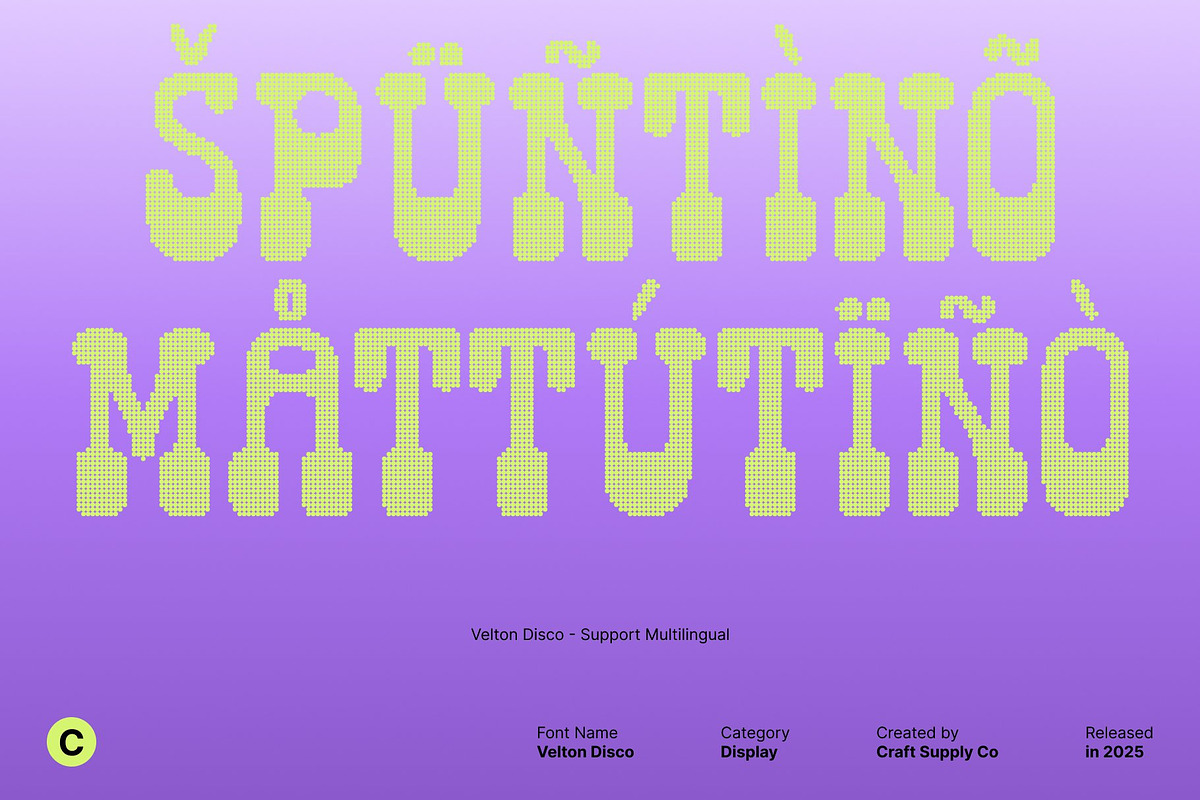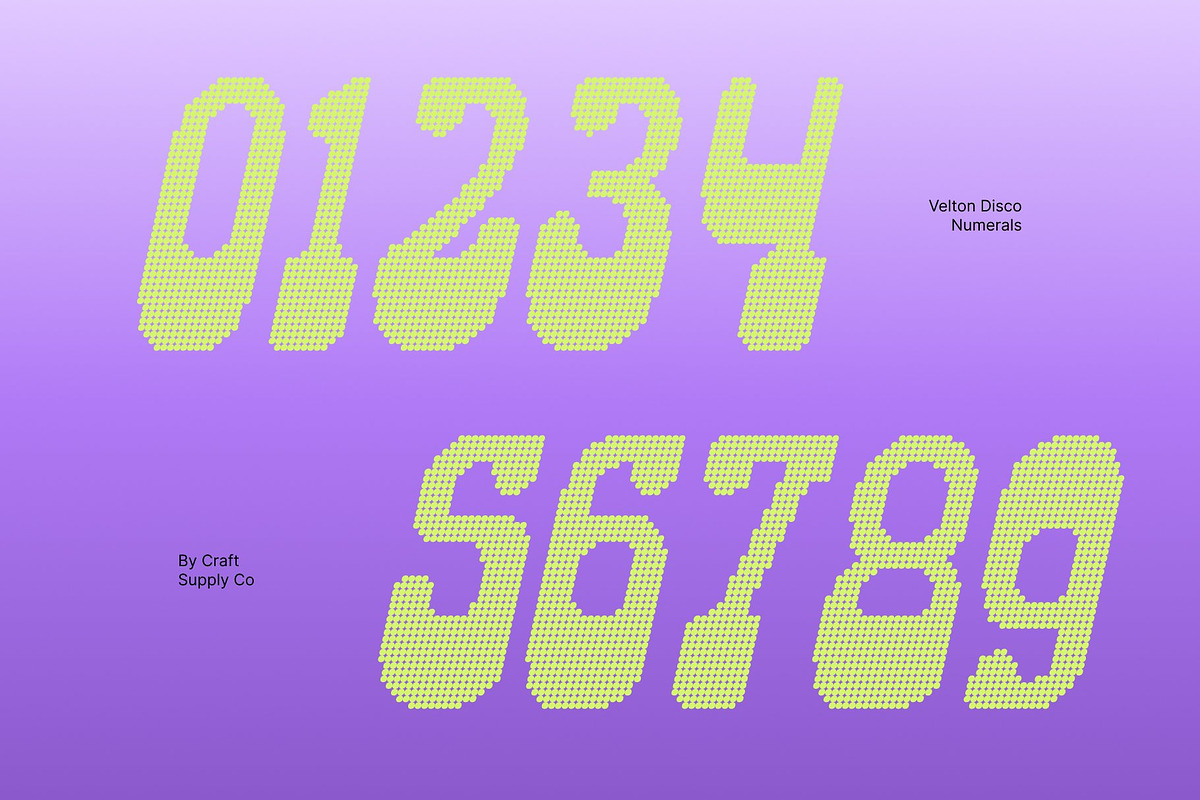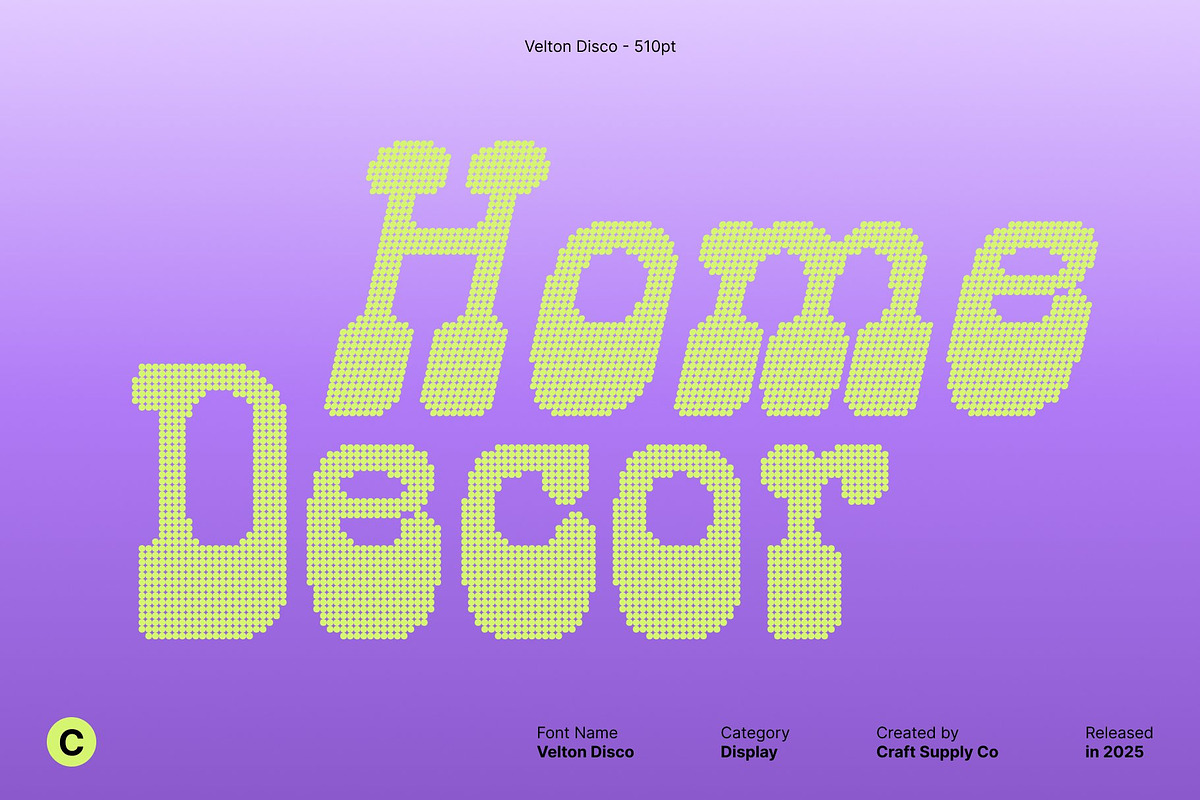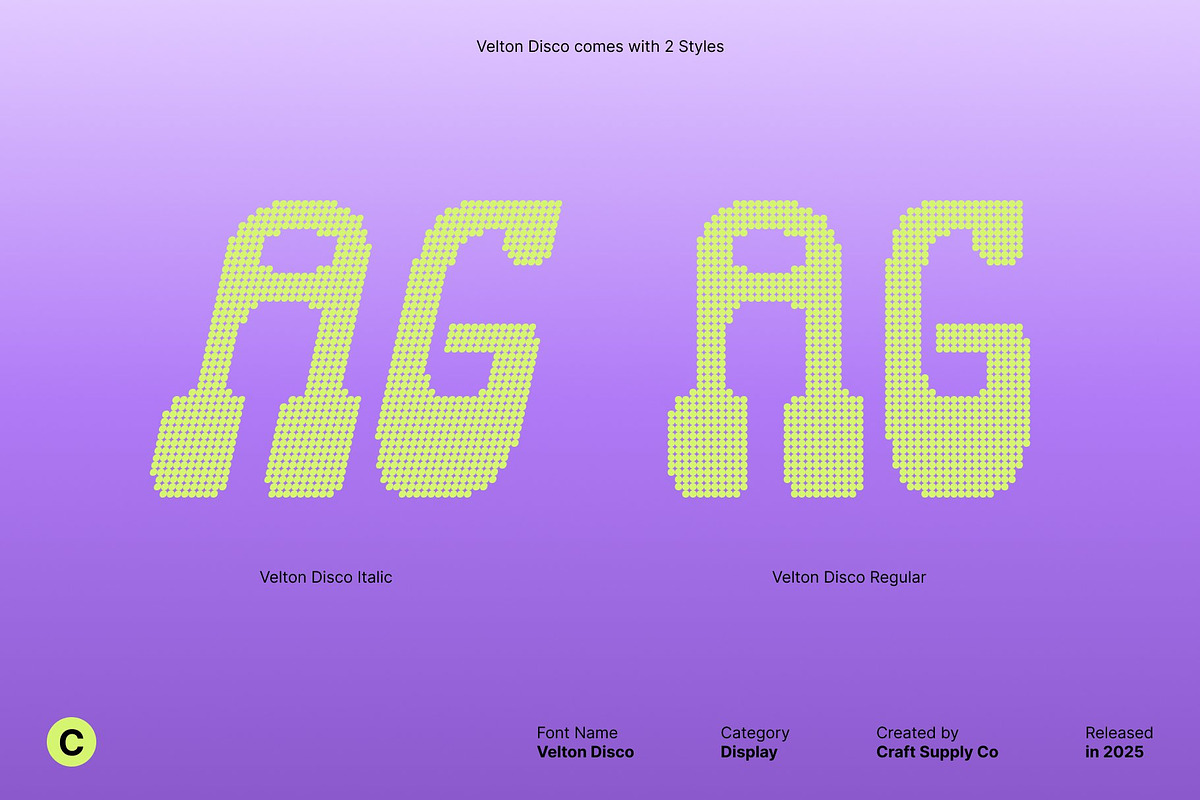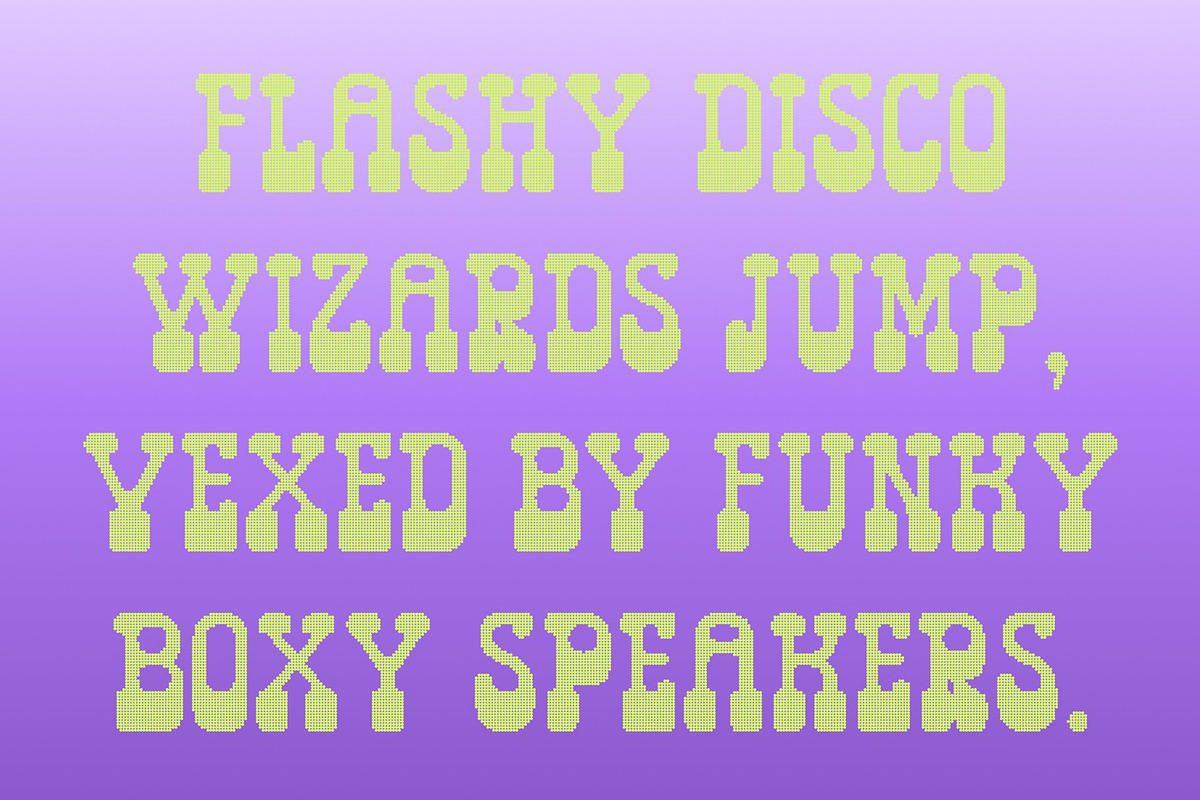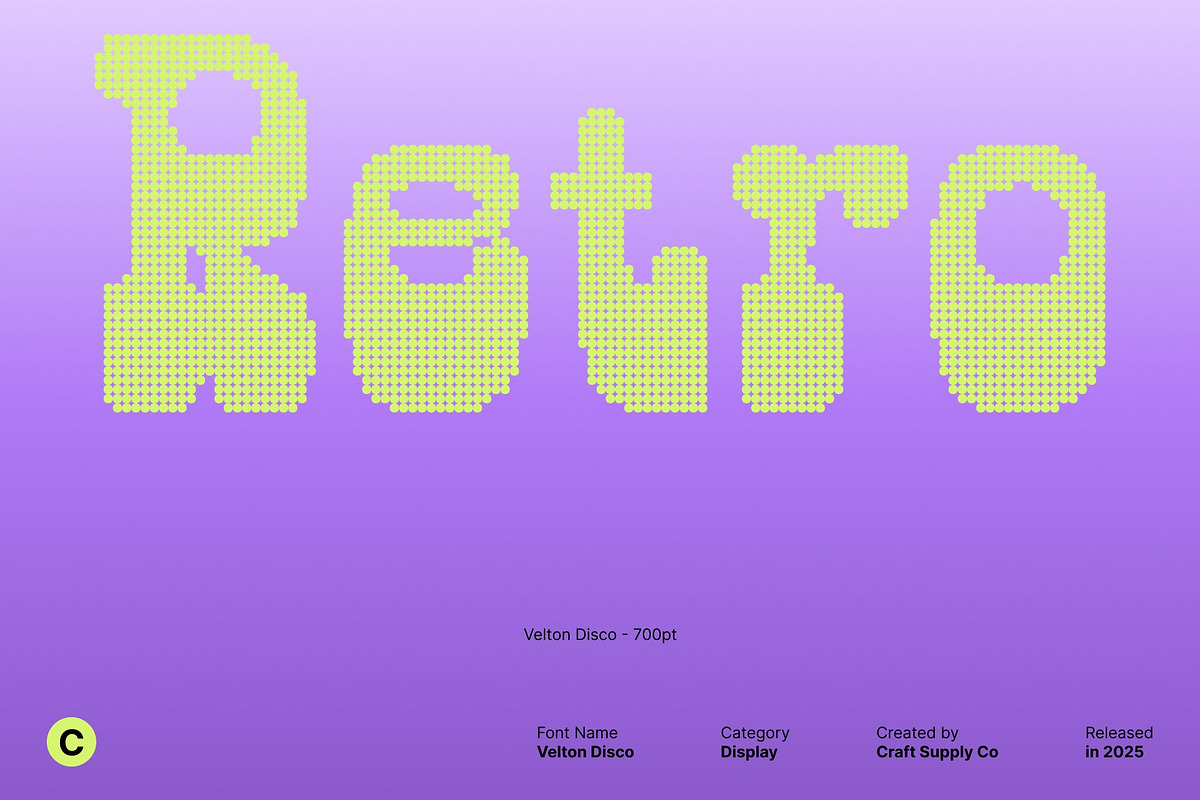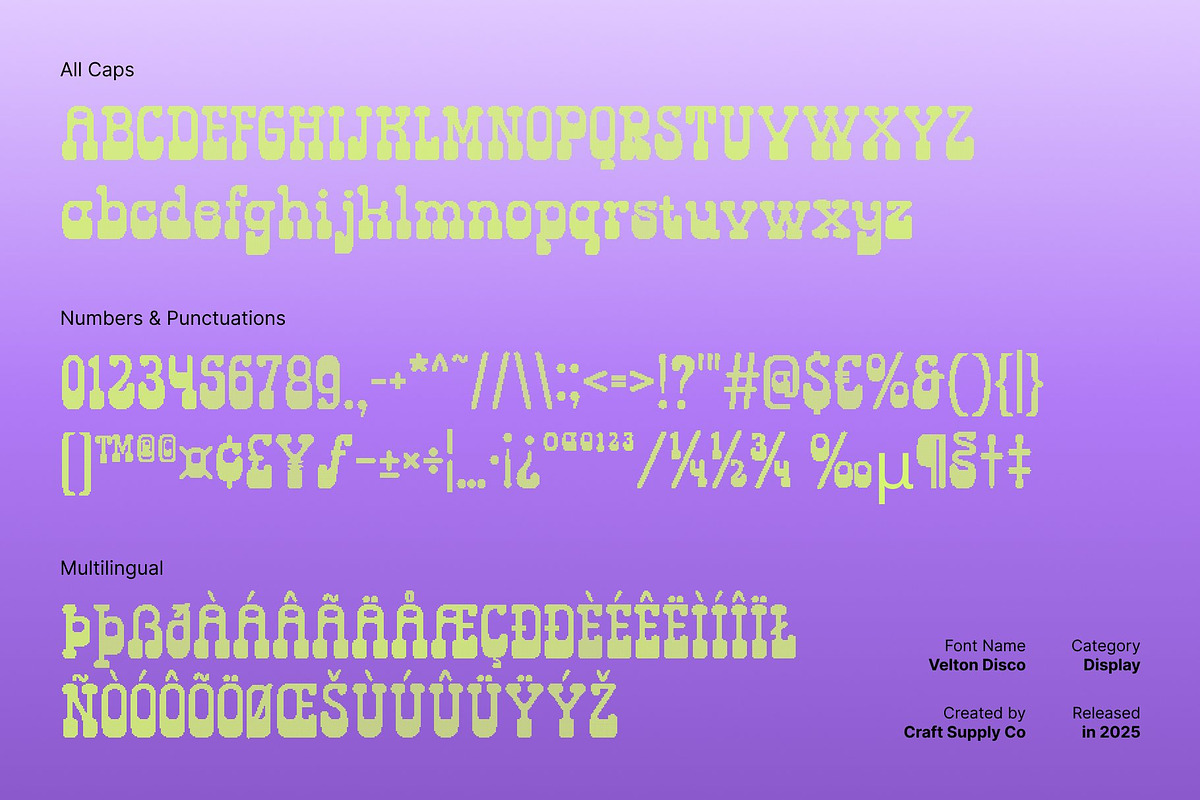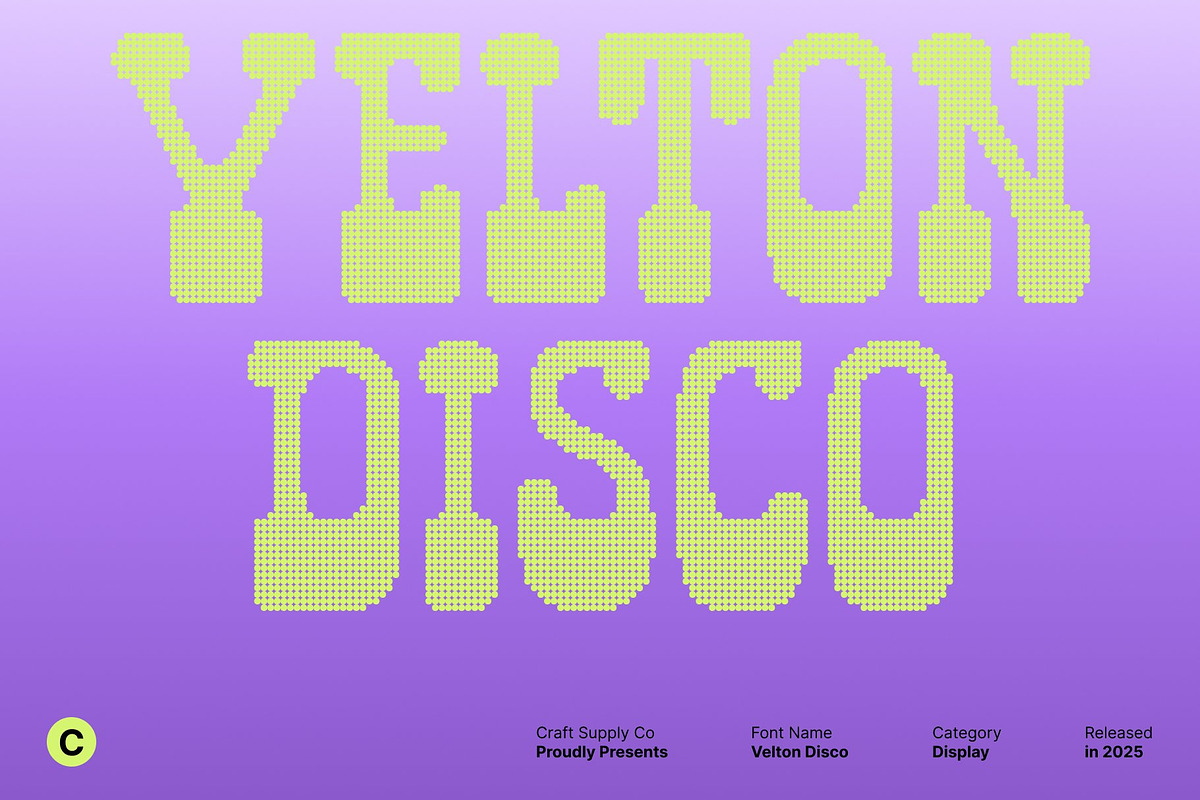
Velton Disco
Velton Disco – Retro Reverse Contrast Display Font
Modular Retro Sans Serif This is a retro yet stylish reverse contrast display font that merges modular aesthetics with bold personality. Its unique design channels the energy and glamour of disco, making it perfect for posters, branding, or editorial layouts that celebrate classic design movements.
Dynamic Vintage Flair With distinctive reverse contrast letterforms, this font radiates vintage rhythm and dynamic flair. The carefully crafted shapes evoke the sparkle and excitement of disco culture, giving every headline, logo, or design element a playful yet sophisticated edge.
Versatile for Eye-Catching Designs Ideal for party posters, nostalgic branding, and funky headlines, this font combines readability with style. Its bold, structured forms ensure visibility while retaining retro charm, making it suitable for both print and digital applications.
Distinctive Branding and Promotion This font’s energetic personality makes it a standout choice for branding and promotional projects. Whether you’re creating unique event graphics, retro-themed campaigns, or vibrant editorial layouts, this font delivers a memorable, stylish, and engaging typographic presence.
- Velton Disco Regular
- Velton Disco Italic